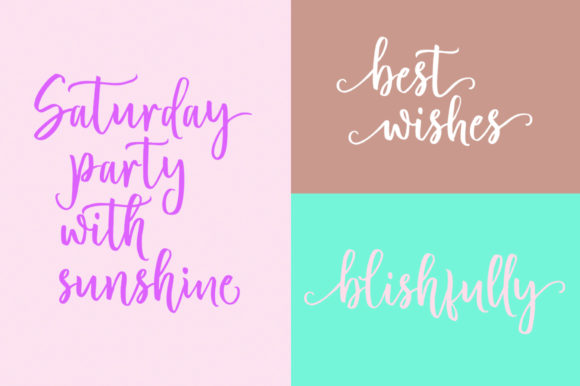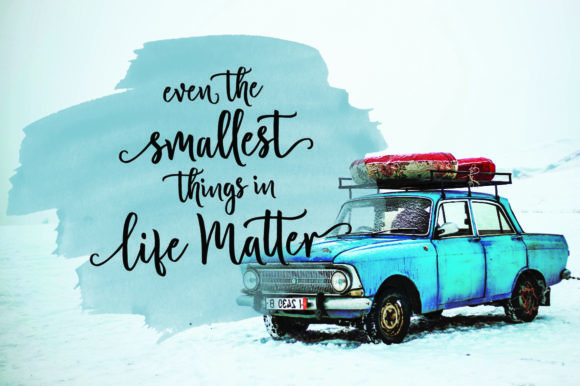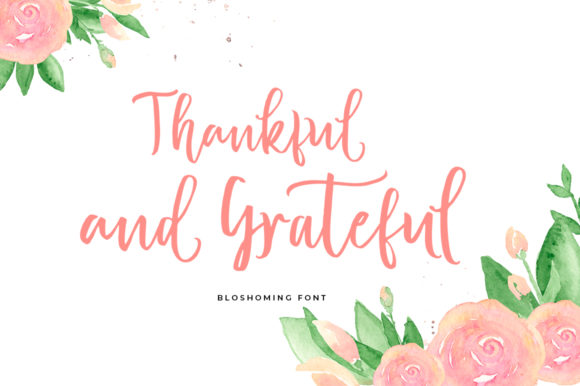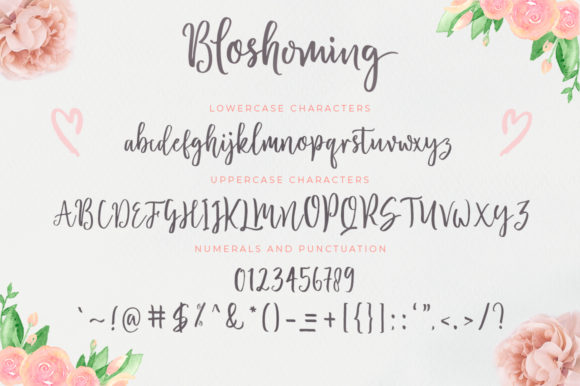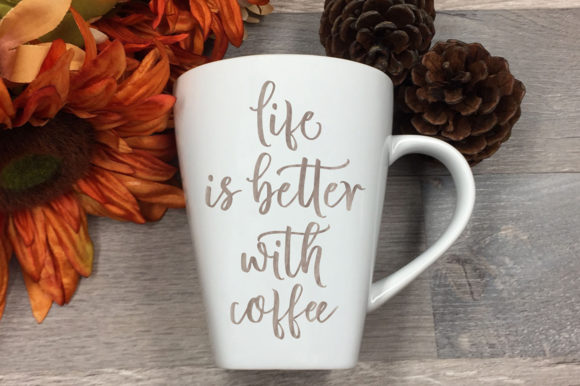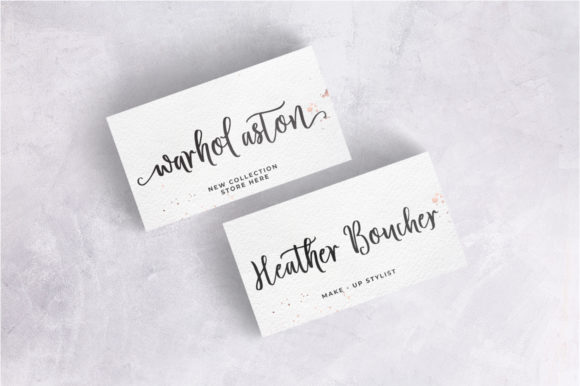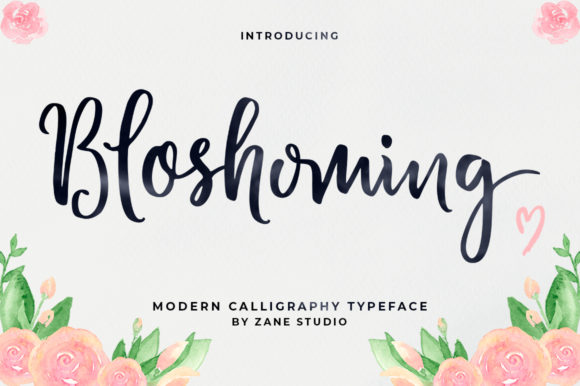
The Blossoming Font: A Modern Script Sensation
I’ll never forget the moment I stumbled upon the perfect font for a project I was working on. I was designing a whimsical wedding invitation, and no matter how hard I tried, I just couldn’t find a script font that felt… right. That was until I discovered Bloshoming, a modern script font with an irregular baseline that instantly captured the trendy, feminine vibe I was going for. In this article, I’ll dive into what makes Bloshoming so special, share some practical tips on how to use it, and explore similar fonts you might love.
An Honest Review of Bloshoming
- ✨ Unique, irregular baseline that adds a touch of whimsy to any design
- ✅ Beautifully crafted letterforms with a feminine, elegant feel
- 💫 Supports OpenType features, glyphs, and stylistic alternates for added versatility
- 🎨 Highly legible, even at smaller font sizes
While Bloshoming is an amazing font, there are a few things to keep in mind:
- ⚠️ Some users may find the irregular baseline a bit challenging to work with, especially if they’re used to more traditional fonts.
- 🤔 The font’s uniqueness may not be suitable for very formal or traditional designs.
The Designer Inspiration Behind Bloshoming
According to the font’s creators, Bloshoming was inspired by the beauty of nature and the world of fashion. The designers wanted to craft a font that was both trendy and timeless, with a unique twist that would set it apart from more traditional script fonts. The result is a font that’s perfect for designers, crafters, and creative hobbyists looking to add a touch of elegance and whimsy to their projects.
Q: What makes Bloshoming so unique?
A: Bloshoming’s irregular baseline and beautifully crafted letterforms make it stand out from more traditional script fonts.
Q: Is Bloshoming suitable for body text?
A: While Bloshoming is highly legible, its unique style may not be the best choice for lengthy body text. It’s better suited for headings, titles, or short paragraphs.